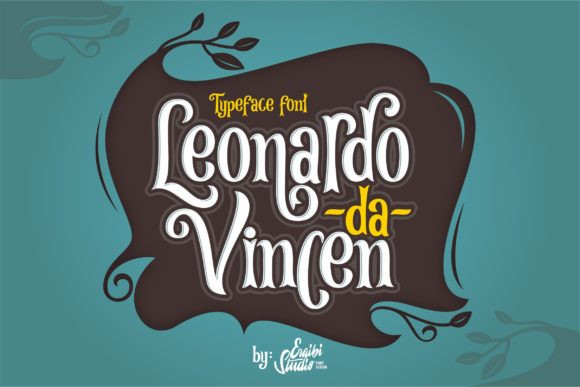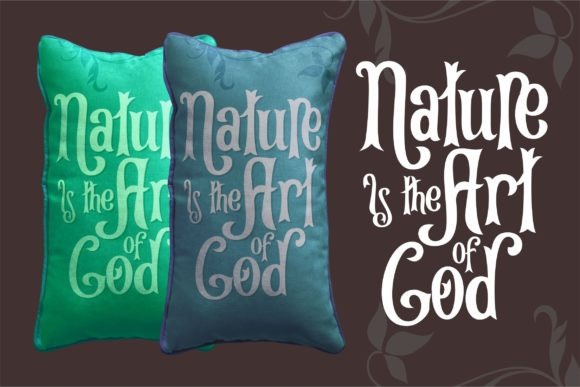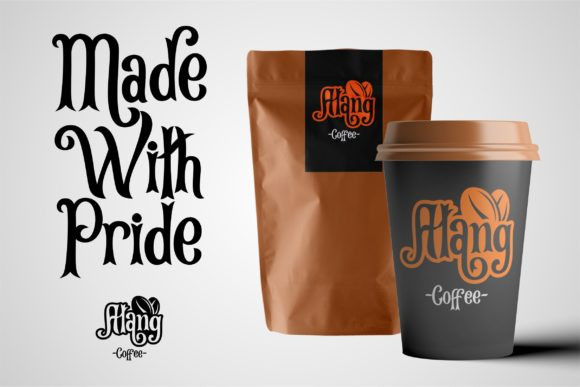
Leonardo Da Vincen Font
Leonardo Da Vincen is a new display font with a style that is quite unique.
Inspired by nature this lovely font can be used for quotes, logos, label designs for foods and beverages and so much more.